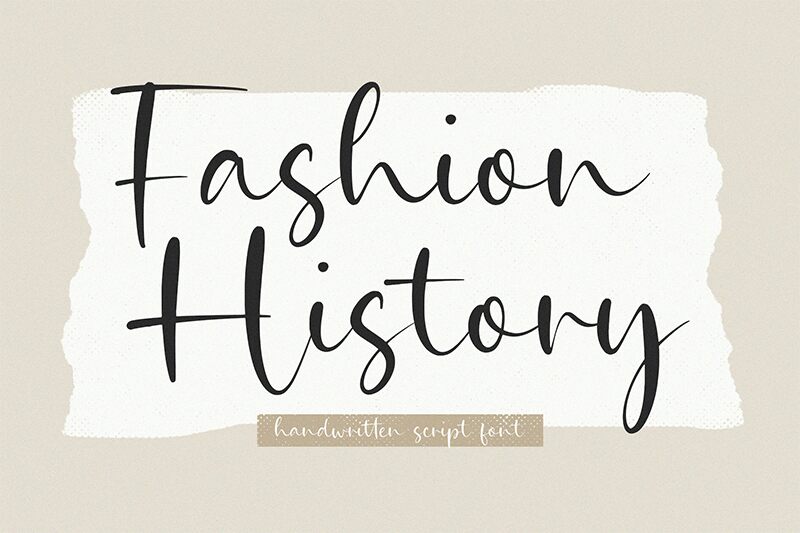
Fashion History
Fashion History, a captivating handwritten font created by Timur Type, exudes a timeless elegance and a touch of vintage charm. With its organic, fluid strokes and natural variations, this font evokes a sense of artisanal craftsmanship, evoking emotions of nostalgia and sophistication. The delicate balance between bold and delicate lines, coupled with the subtle slant, lends the font a refined, yet approachable aesthetic.
This versatile font can seamlessly integrate into a wide range of design projects, from elegant wedding invitations and luxury brand identities to editorial layouts and product packaging. Its versatility allows it to effortlessly transition between formal and casual contexts, making it an invaluable asset in the hands of designers, typographers, and creatives seeking to infuse their work with a touch of timeless elegance.